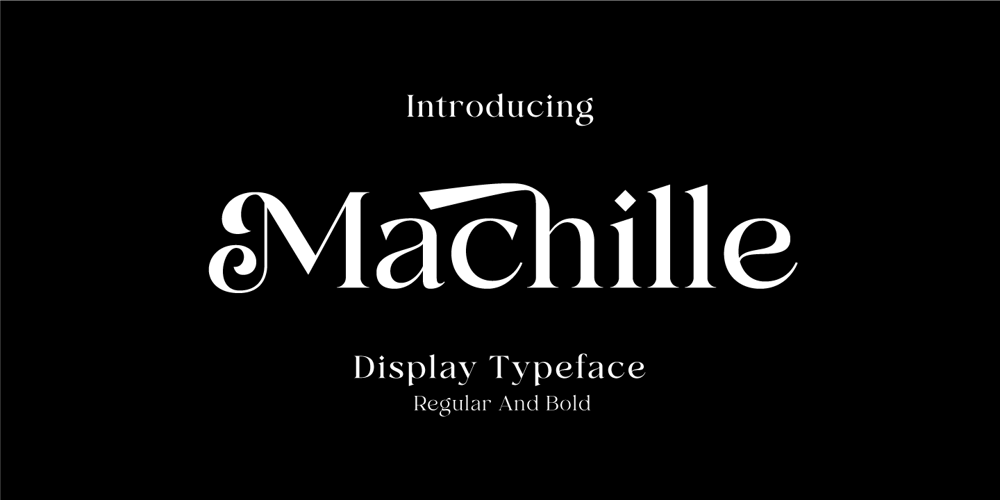
Machille
Machille font
Machille Font Family was designed by Akhmad Reza Fauzi and published by Grezline Studio. Machille contains 2 styles and family package options. Machille is a display font with elegance and unique looks crafted especially for fashion design. But, you can also use this font for other needs such as invitations, labels, logos, magazines, books, greeting / wedding cards, packaging, stationery, novels, labels and etc. Feature : Alternates and Ligatures Multilingual Language Works on PC & Mac Simple installations Accessible in Adobe Illustrator, Adobe Photoshop, Adobe InDesign, and even works Microsoft Word. We highly recommend using a program that supports OpenType features and Glyphs panels like many Adobe apps and Corel Draw, so you can see and access all Glyph variations.Thank You!Grezline Studio – Akhmad Reza Fauzi